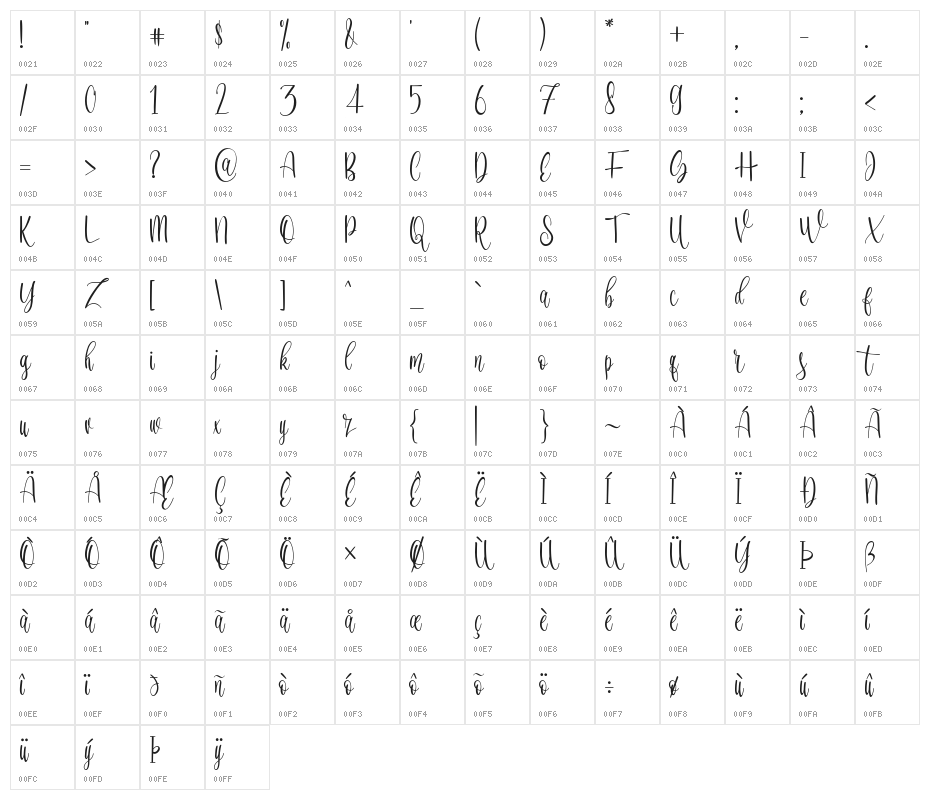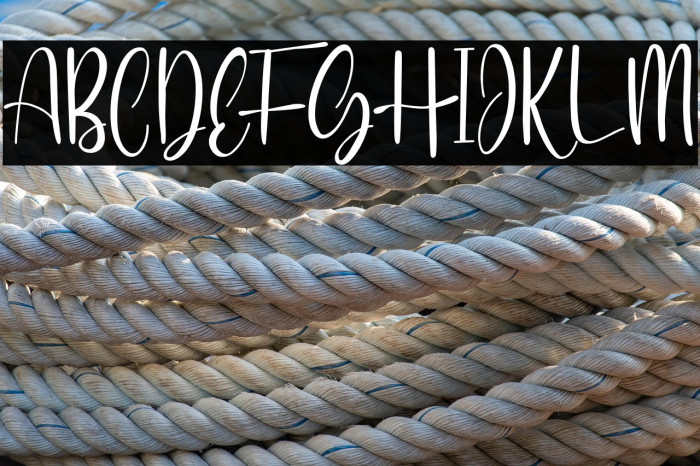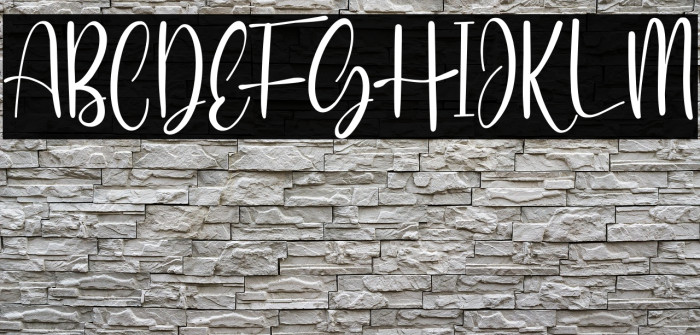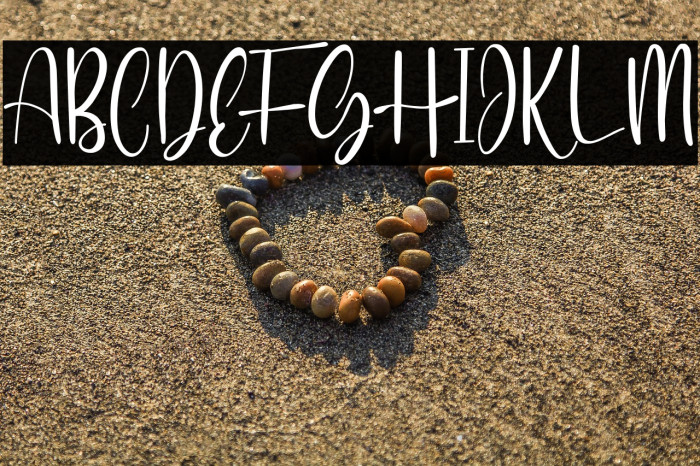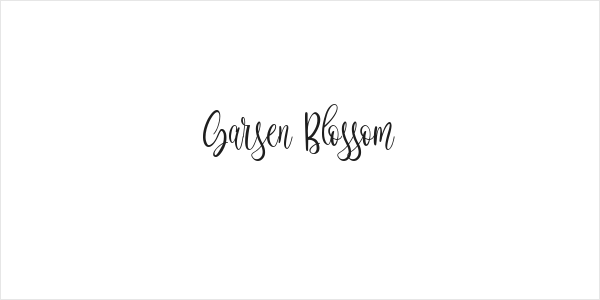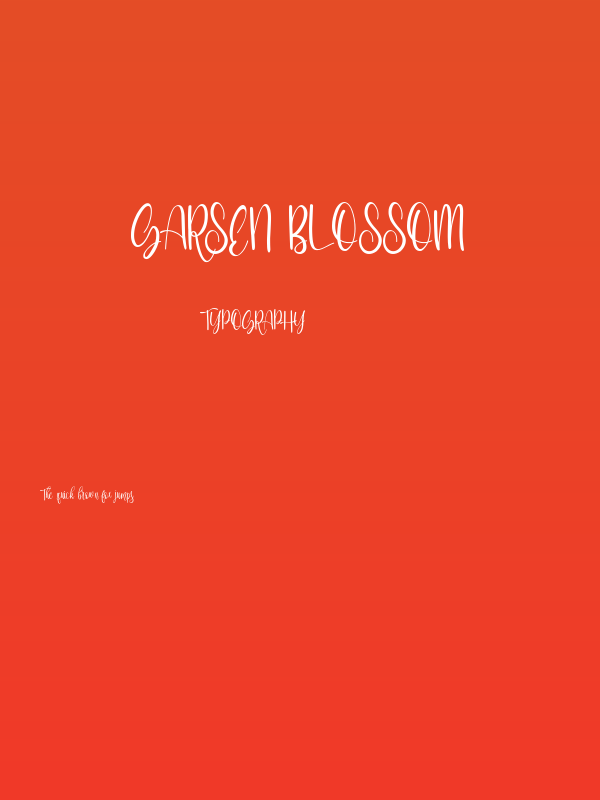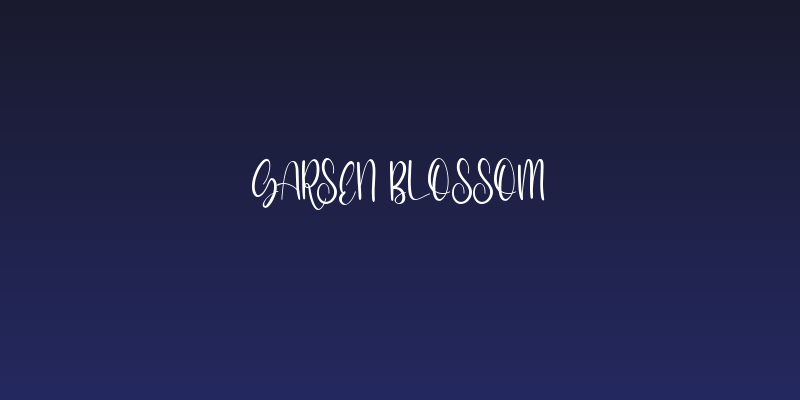
Garsen Blossom Font
Garsen Blossom Description
This font features a playful and elegant handwritten style, characterized by its flowing, cursive letters. The uppercase letters are tall and slender, with a whimsical flair that adds a touch of sophistication. The lowercase letters maintain a consistent style, with smooth curves and loops that enhance readability while retaining a personal touch. The numbers are clear and distinct, matching the overall aesthetic of the font. Special characters are creatively designed, adding to the font's versatility. This font exudes a sense of creativity and charm, making it suitable for a variety of design projects.
| Use Case | Logos, Invitations, Social Media |
| Proposed Projects | Ideal for wedding invitations, greeting cards, branding, and social media graphics. |